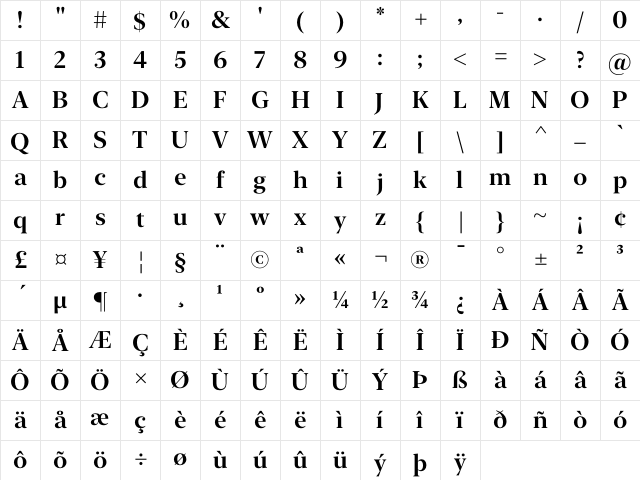
Complete New York Extra Large Semibold glyph index. Displaying only characters natively supported by New York Extra Large Semibold font.
New York Extra Large is a composed and adaptable typeface that performs quietly and consistently across a wide range of design contexts. Its bold stroke weight gives it real presence on the page.